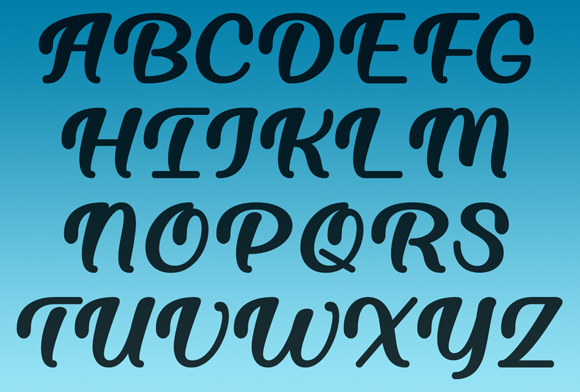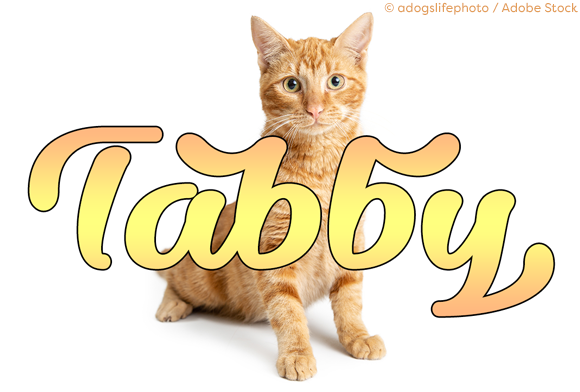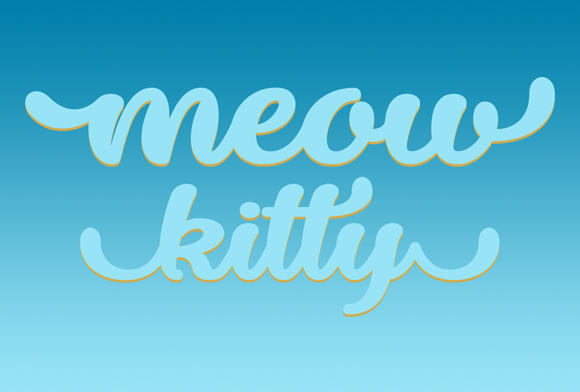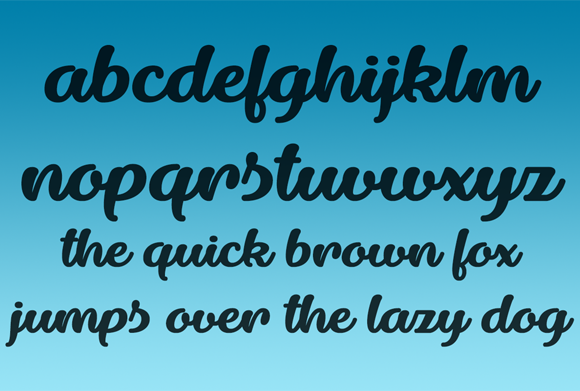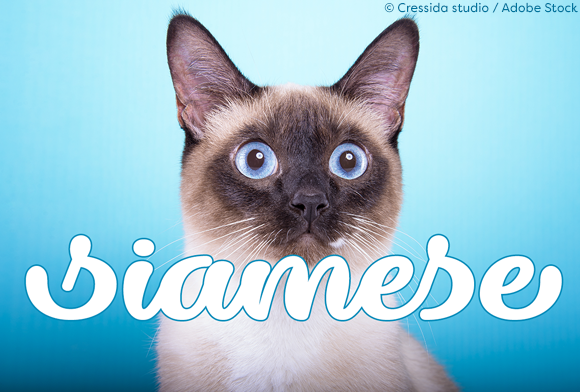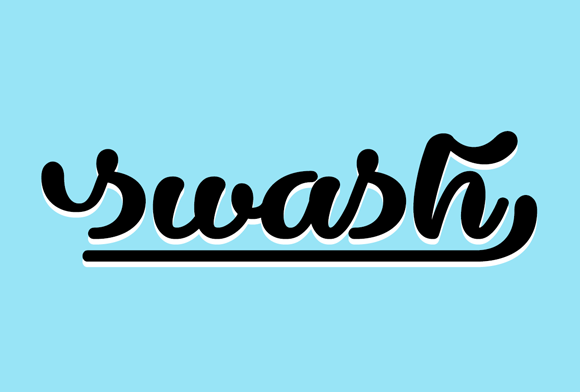
Dillon the Cat Font: The Purrfect Typeface for Your Creative Projects
Are you a designer or crafter looking for a stylish and versatile font to elevate your creative projects? Look no further than Dillon the Cat Font! This charming typeface is purrrrfect for a variety of applications, from logos and product labels to invitations and more. With its unique blend of elegance and playfulness, Dillon the Cat Font is sure to add a touch of whimsy to your designs.
A Font that’s the Cat’s Meow
Dillon the Cat Font is a stylish and sophisticated typeface that’s inspired by the elegance of a feline friend. Its sleek lines and curved shapes evoke the agility and playfulness of a cat, making it a fun and creative choice for designers and crafters. Whether you’re working on a logo, product label, or invitation, Dillon the Cat Font is sure to add a touch of personality and flair to your design.
One of the best things about Dillon the Cat Font is its versatility. This typeface is suitable for a wide range of creative projects, including:
- Logos: Add a touch of sophistication and elegance to your logo with Dillon the Cat Font.
- Product Labels: Make your product labels stand out with this stylish and eye-catching typeface.
- Invitations: Create beautiful and unique invitations for special occasions, such as weddings, birthdays, and more.
- Stationery: Add a personal touch to your stationery with Dillon the Cat Font.
- Digital Art: Use this font to add text to your digital art, such as illustrations, graphics, and more.
Dillon the Cat Font comes with a range of features and benefits that make it a must-have for designers and crafters. Some of the key features include:
- Underline: Add an extra touch of elegance to your text with the underline feature.
- Swashes: Use the included swashes to add a decorative touch to your text.
- Alternates: Switch between different alternate characters to add variety to your text.
Why Choose Dillon the Cat Font?
So why choose Dillon the Cat Font for your creative projects? Here are just a few reasons:
- Unique and Eye-Catching: This typeface is sure to grab attention and add a touch of personality to your designs.
- Versatile: Dillon the Cat Font is suitable for a wide range of creative projects, from logos and product labels to invitations and more.
- High-Quality: Dillon the Cat Font is a high-quality typeface that’s designed to produce crisp and clear text.
In conclusion, Dillon the Cat Font is a stylish and versatile typeface that’s purrrrfect for a variety of creative projects. With its unique blend of elegance and playfulness, this font is sure to add a touch of whimsy to your designs. Whether you’re a designer or crafter, Dillon the Cat Font is a must-have for anyone looking to elevate their creative projects. So why wait? Download Dillon the Cat Font today and start creating your own purrfect designs!